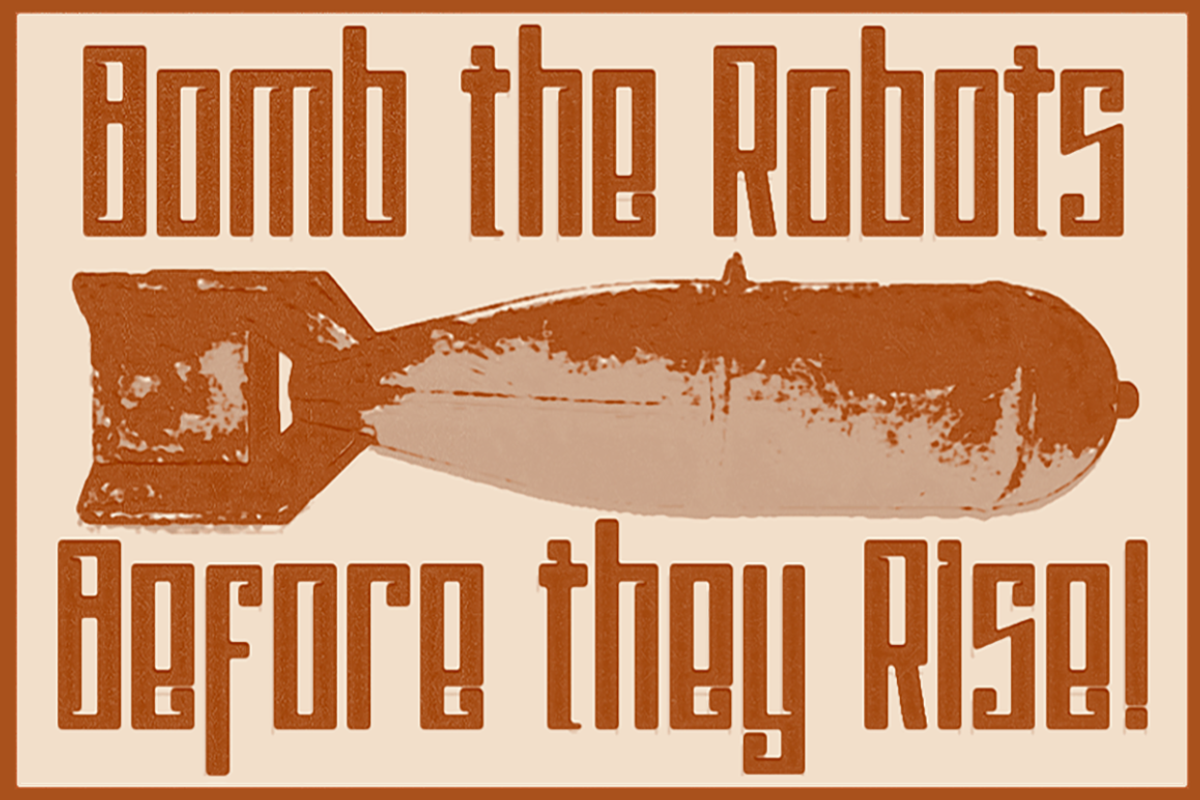
Psychotic Robots Font
Psychotic Robots Font by Tom Kolter Fun Shop is a font selected for branding, posters, packaging, typography.
Why Psychotic Robots Font is worth a look
Psychotic Robots Font by Tom Kolter Fun Shop fits naturally into Branding, posters, packaging, typography.